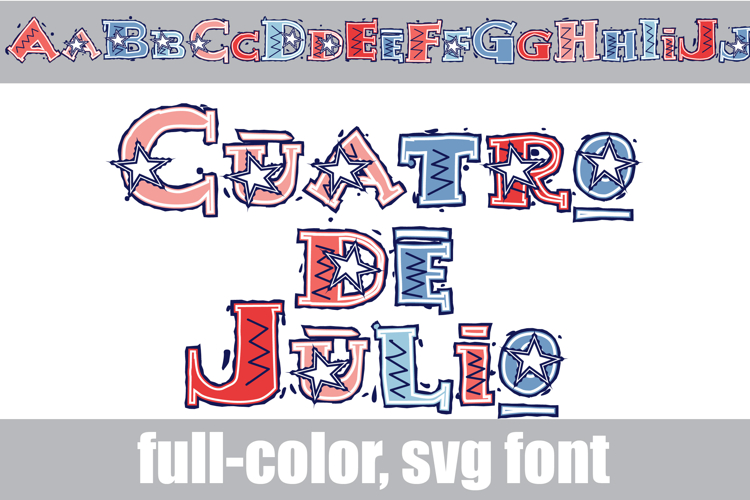
Cuatro De Julio Too Color Font
This full-color, Aztec-style font is in a pastel patriotic color palette. There is an alt case of additional colors of each letter that you can access through your system's character map.